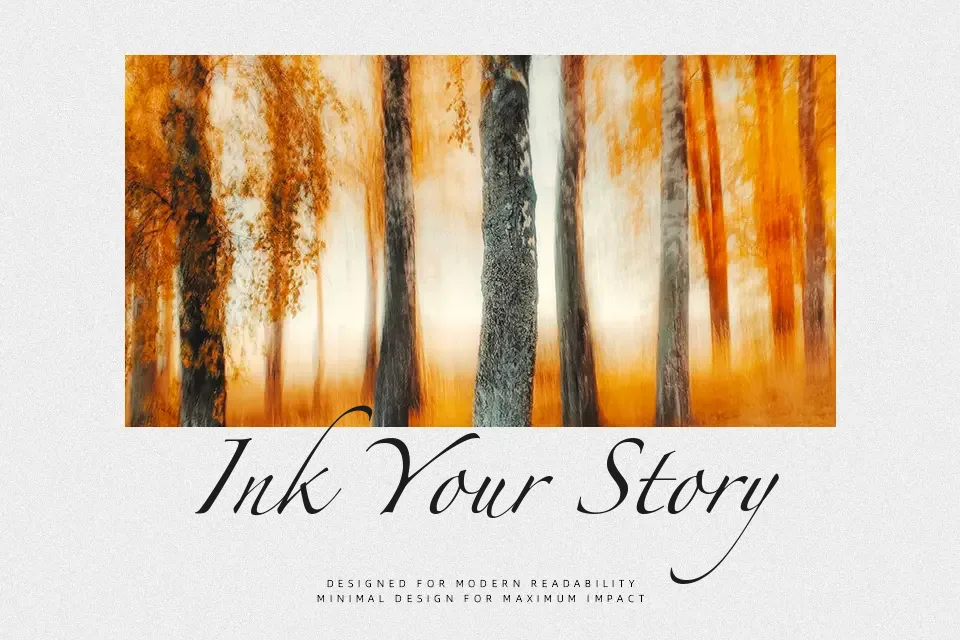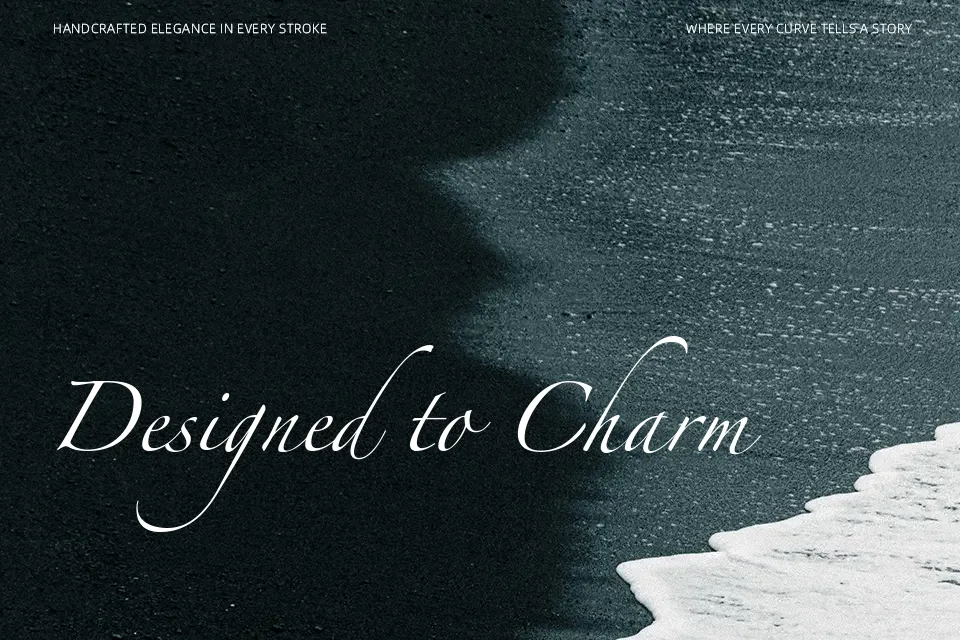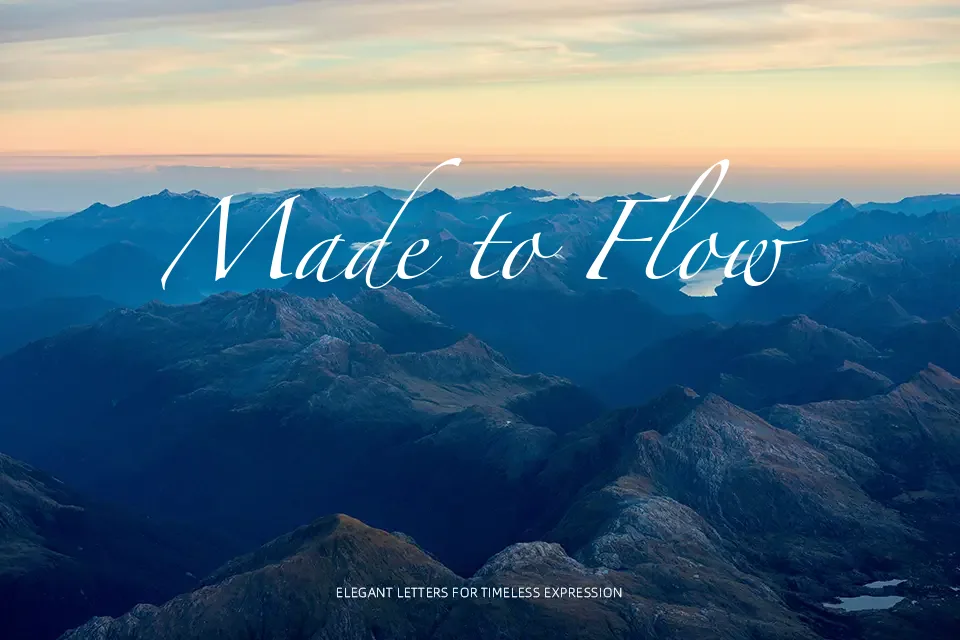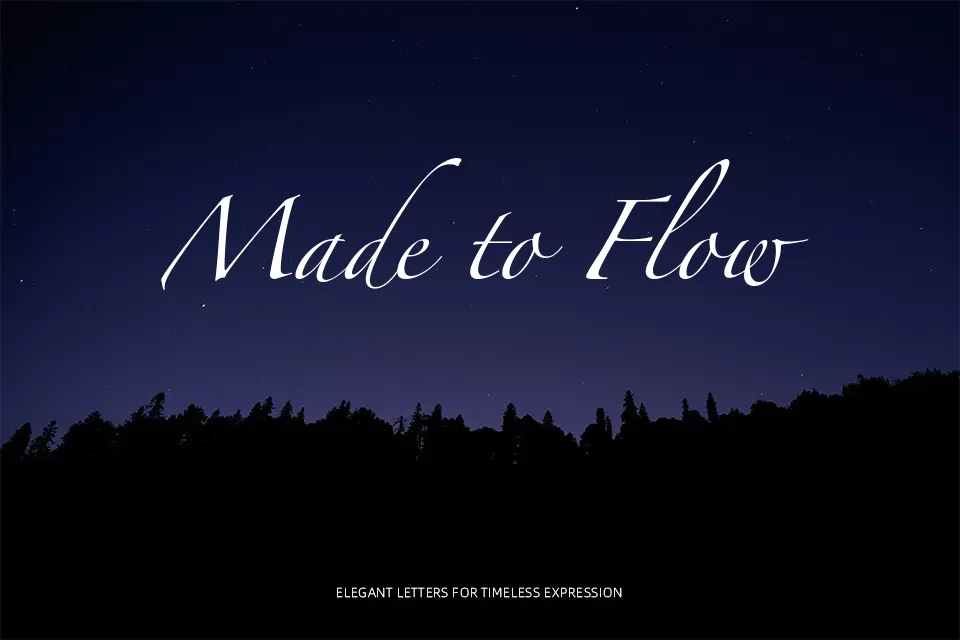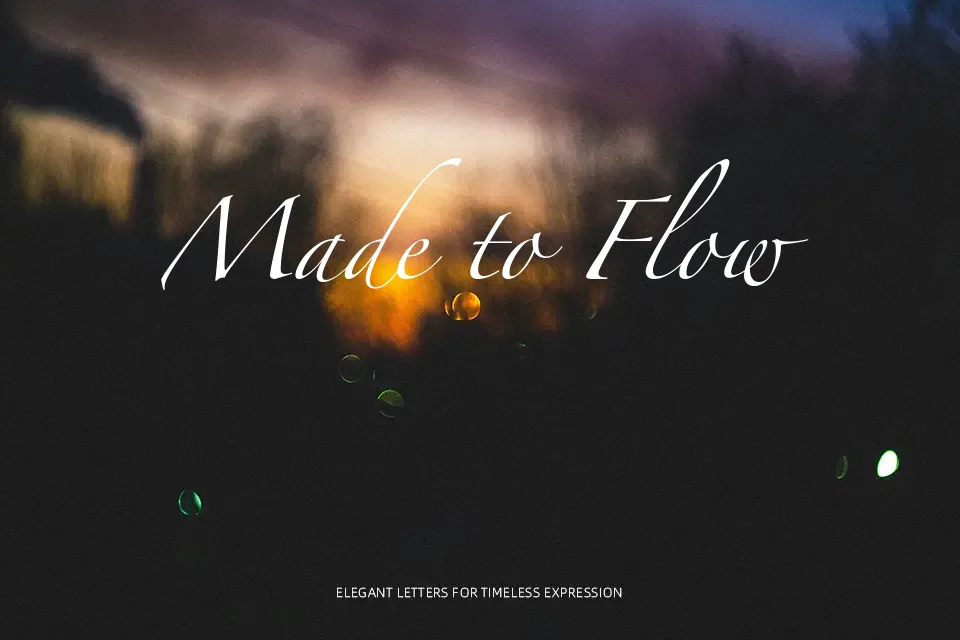
Zapfino Font
If you are looking to create a sense of sweeping, romantic grandeur, Zapfino Font is an unmatched typographic achievement. Designed by the masterful Hermann Zapf in 1998, this complex calligraphic script leverages advanced digital technology to mimic the incredible fluidity of traditional pen-and-ink writing. The typeface is famously characterized by its wildly expressive hyper-flourishes, dramatic swash capitals, and deep, sweeping descenders that naturally interlock across multiple lines of text.
Because of its highly ornamental and luxurious presence, it performs beautifully on formal wedding invitations, elegant wine labels, and high-end boutique logos where an artisanal, premium feel is required. However, its massive flourishes and extreme contrast make it entirely unusable for small UI text or lengthy body paragraphs, as the elaborate strokes will quickly become an illegible, tangled mess. It remains one of the most spectacular digital scripts ever created.
– premium wedding invitations
– luxury wine labels
– high-end boutique branding
– elegant restaurant menus
– dense body paragraphs
– small user interfaces
– corporate legal documents
Perfect for branding, invitation, and logo, with a artistic and calligraphy style.